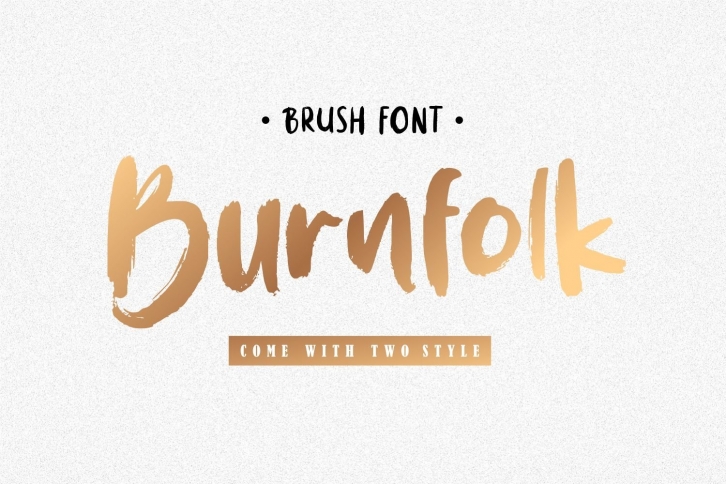
Burnfolk is a great font that was designed by Allouse Studio. Imagine the amount of combinations you can create using this font! The archive is 6.77 MB and it was released on January 3, 2021. Burnfolk looks beautiful on wedding invitations, greeting cards, logos, posters, labels, t-shirt designs, logos, business cards and is perfect for use in ink or watercolor works, fashion, magazines, packaging and food menus, children's books and more!